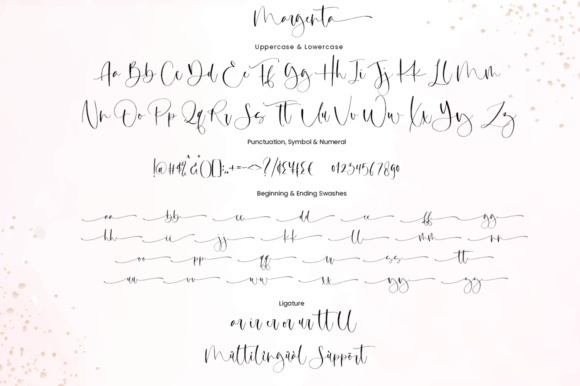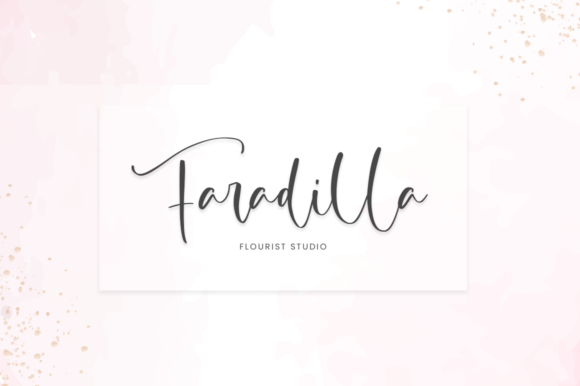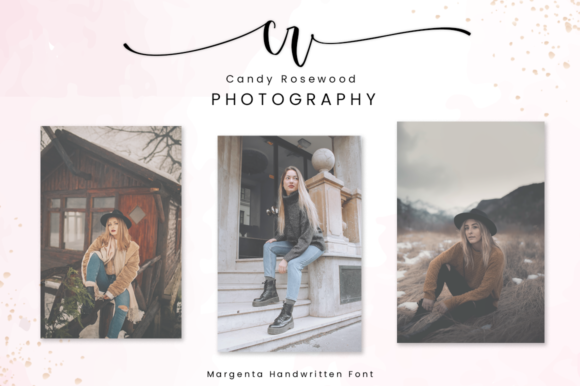
About Margenta Font
Margenta is a beautiful calligraphy font. It is perfect for crafting, branding, invitations, stationery, wedding designs, social media posts, advertisements, special events or anything else that you wish to design.